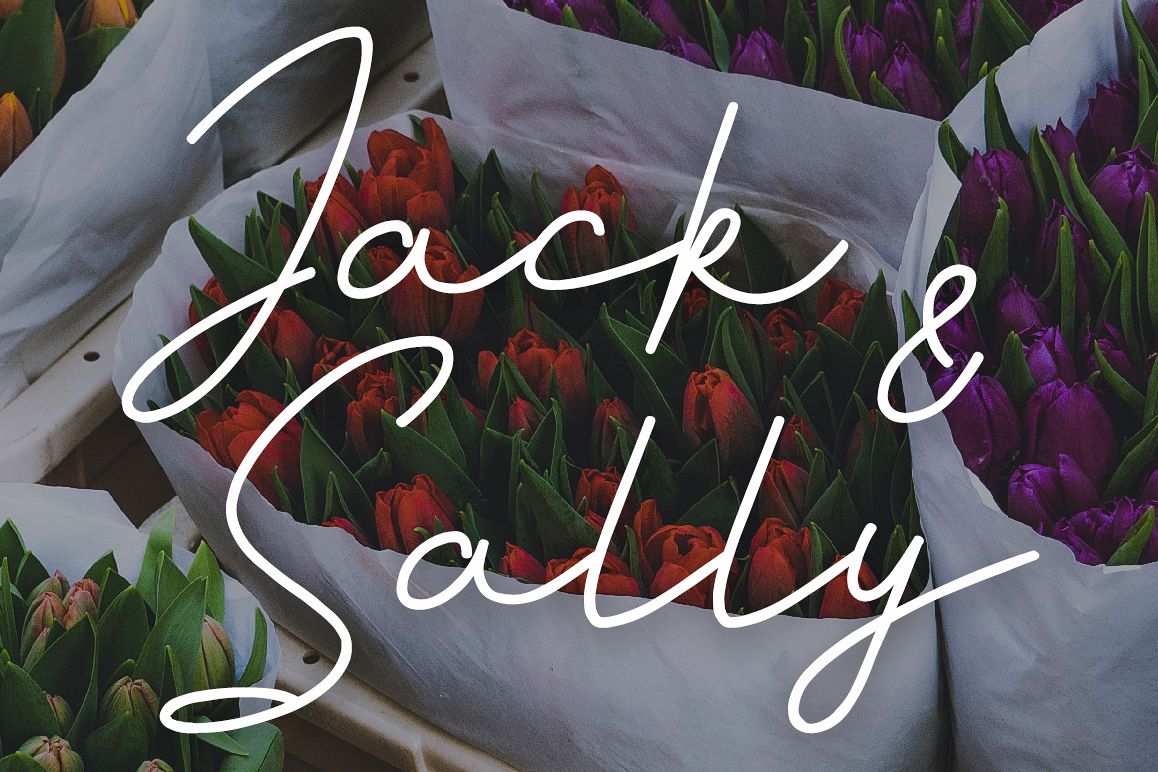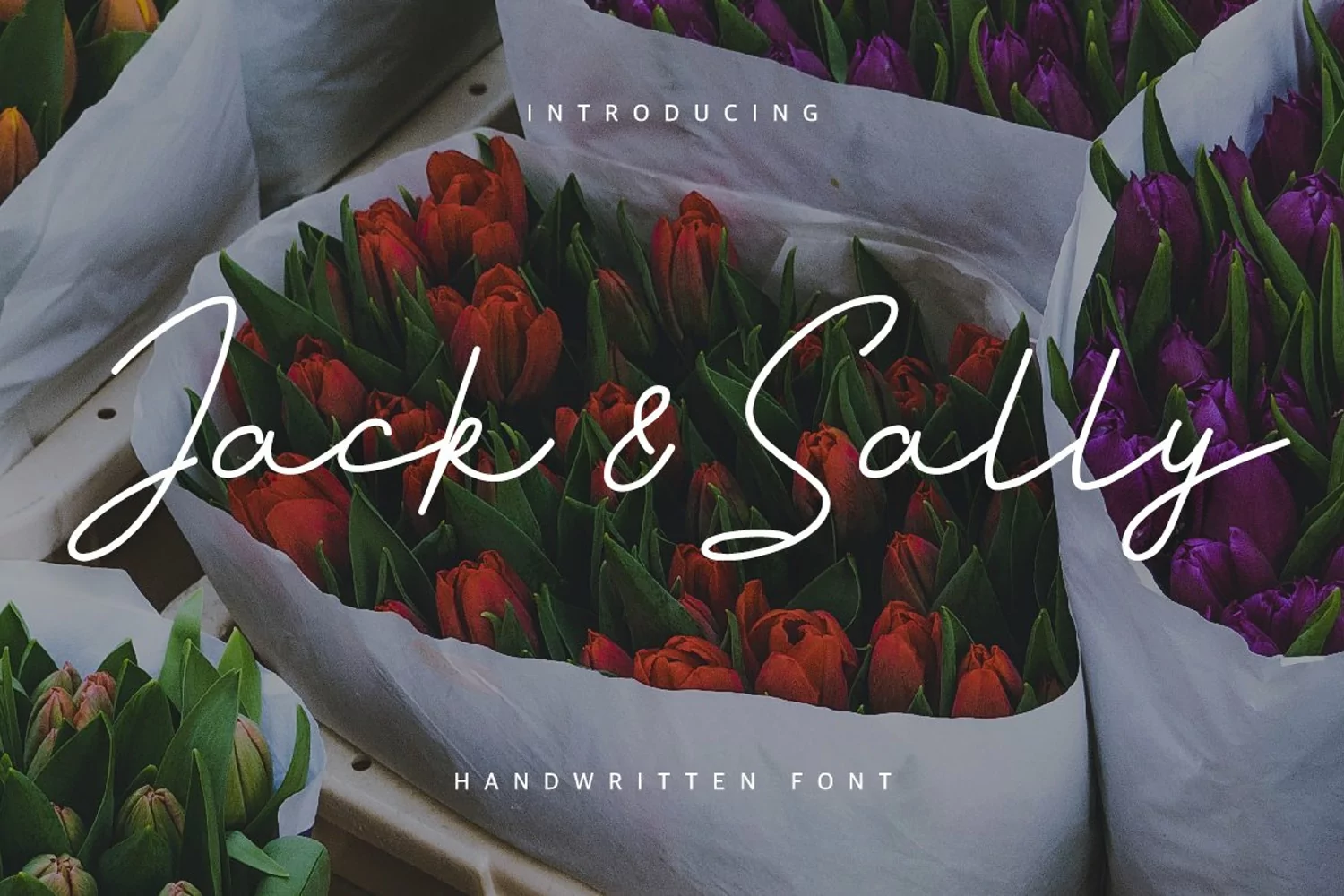
Give your designs an authentic handcrafted feel. "Jack And Sally Typeface" is perfectly suited to signature, stationery, logo, typography quotes, magazine or book cover, website header, clothing, branding, packaging design and more.License: This font included for personal, commercial use, multiple projects, behalf of a client. Fonts may be printed on to products that are subsequently sold, websites and within website design. Graphics may be printed on to products that are subsequently sold when an effort is made to use them as part of a new design including a variation of other graphics or fonts.This font available on OTF, TTF and Web Font formats.Thanks for use this font